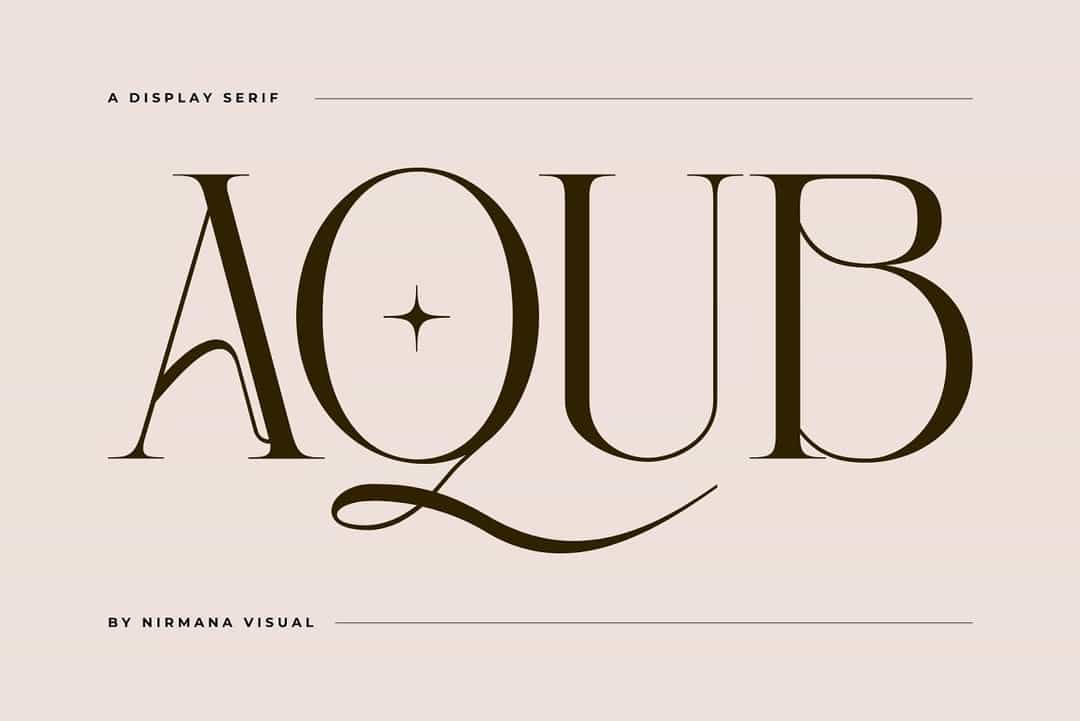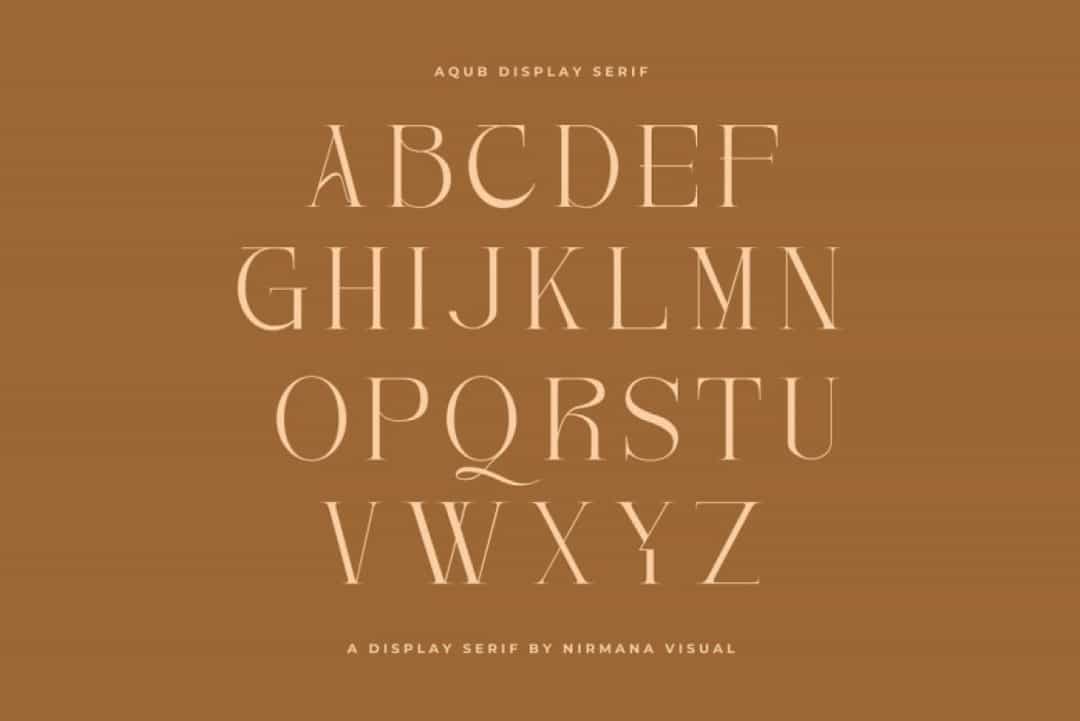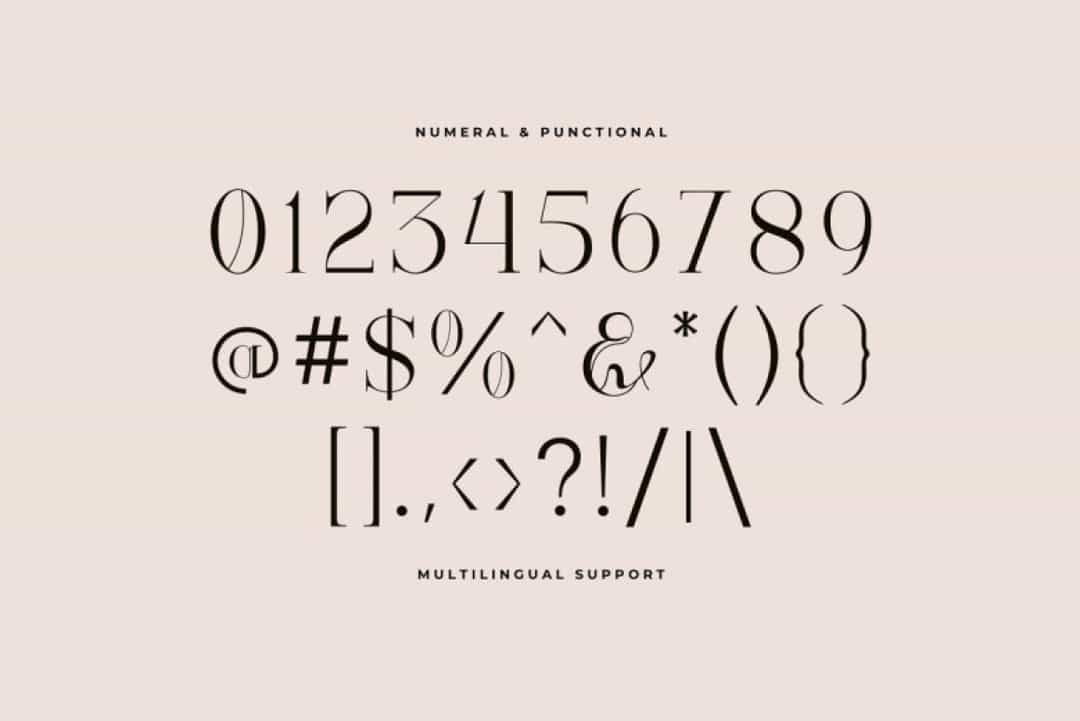
Aqub Font is an attractive serif typeface, boasting both old-world elegance and modern sensibilities. Equipped with distinctive ligatures, discretionary ligatures and alternatives for optimal design harmony, Aqub can add visual impact to logos & branding projects, social media posts, advertising or product designs.